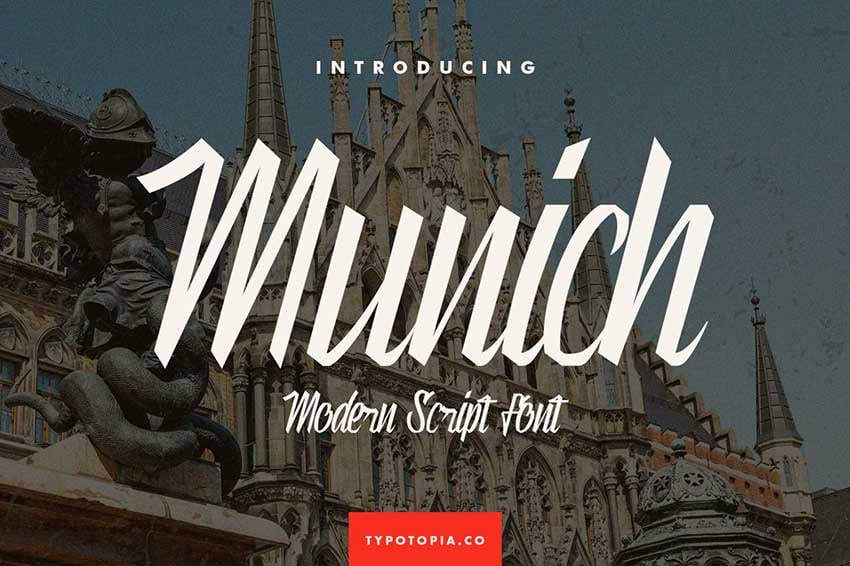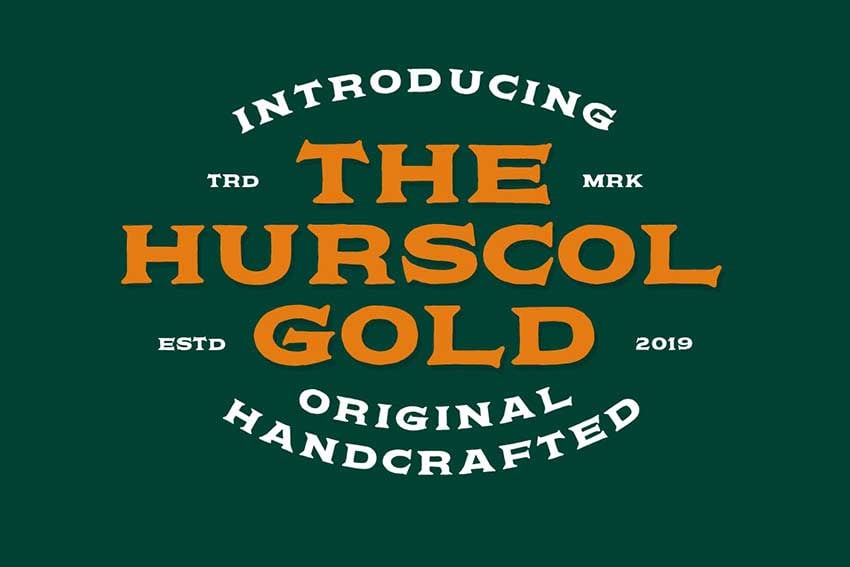
43 Best Cricut Sports Fonts (Varsity, Jersey, Baseball, and Stencil Fonts)
Explore some of the best Cricut sports fonts and Cricut fonts with tails to add to your creative projects.
Touchdown Slab Font (OTF, TTF, EOT, SVG, WOFF, WOFF2)
This bold and bulky sports font for Cricut is excellent for football games. Touchdown has two versions: a clean version and a grainy texture. The latter can help you recreate vintage-style photos with a unique retro texture.
Slimedunk (OTF, TTF)
This modern and unique sans serif varsity font for Cricut comes in three styles. The regular style can be used for a project that needs clear fonts. The rough version can be used for projects that require more personality, like movie posters or titles. The italic version is a nice one to have in your designer toolbox to create a hierarchy.
Boxing (OTF)
This slab serif font is a great baseball font for Cricut. This bold font is inspired by digital games and can add a punchy look to your designs. Use this slab serif to create an emblem for sports-related projects.
Beard Canye (OTF)
Beard Canye is a beautiful hand-lettered baseball font for Cricut. The font is clean, modern, and absolutely legible, especially from afar. Beard Canye is also suitable for branding, packaging, and social media.
Boston (OTF, TTF)
Cricut fonts with tails that are also high-quality are hard to come by. This font comes with multiple swashes that can elevate your projects. Boston is a beautiful Cricut baseball font suitable for apparel, editorial design, and social media.
Radens (OTF, TTF, WOFF)
Radens is a retro Cricut sports font that combines Americana traditions and sports. This font would perfectly work for brand design, quotes, and apparel. The pack comes with multiple languages and many features.
Nordin (OTF, TTF)
This beautiful and elegant condensed slab serif is a great Cricut jersey font. The tall, condensed look makes it look super sporty, and the slab serifs give it a good base. Nordin Slab Serif is great for editorial design, as a jersey Cricut font, and for branding.
Mudhead (OTF)
This sports-inspired font is an awesome font for Cricut. Mudhead is bold, sharp, and unique. It features an almost slab serif on the characters that make it look strong. The pack contains many different font weights, and this can be the only font you use in a project.
Northline (OTF, TTF, WOFF)
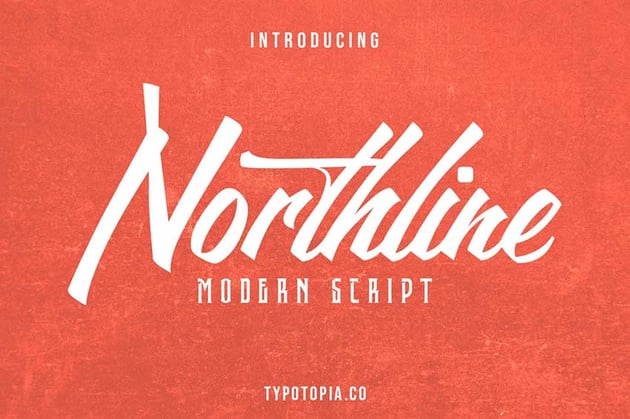
This modern script font is the perfect Cricut baseball font. The script style is vintage, similar to the ones you'd find in a 1950s ad. Northline is suitable for branding, design templates, and sports apparel.
Sporter (OTF, TTF)
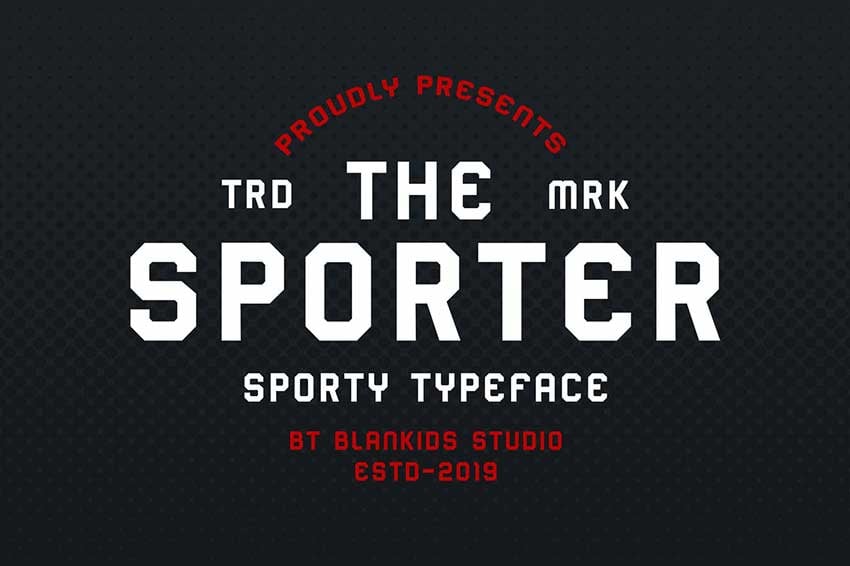
This sports font for Cricut is the perfect addition to your designer toolbox. The font is squarish and sharp, and it comes across as strong and loud. This sporty typeface is suitable for gym branding, sports apparel, and social media posts.
Hardora (OTF, TTF)
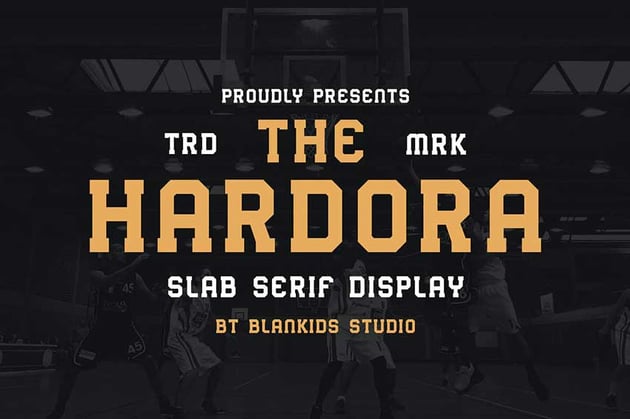
Hardora is the perfect jersey font for Cricut. Use it for the back of team shirts with last names or team names. This font is also suitable for editorial design, packaging, and social media stories.
Hadrey (OTF)
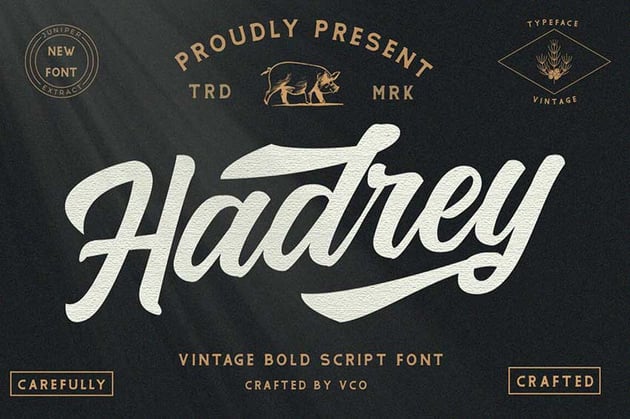
Hadrey is one of the best Cricut fonts with tails, and the pack comes with multiple swash variations. This retro and vintage font is inspired by old Americana, making it perfectly suited for a baseball font for Cricut. Hadrey is also great for merchandise, poster design, and packaging.
Antheme (OTF, TTF, WOFF)
Antheme is a beautiful Cricut sports font with a script style. The characters are built with a brush, and each one contains a finishing stroke that lets you know where the characters start and end. This font is suitable for templates, brochures, and team apparel.
Thirtylane (OTF)
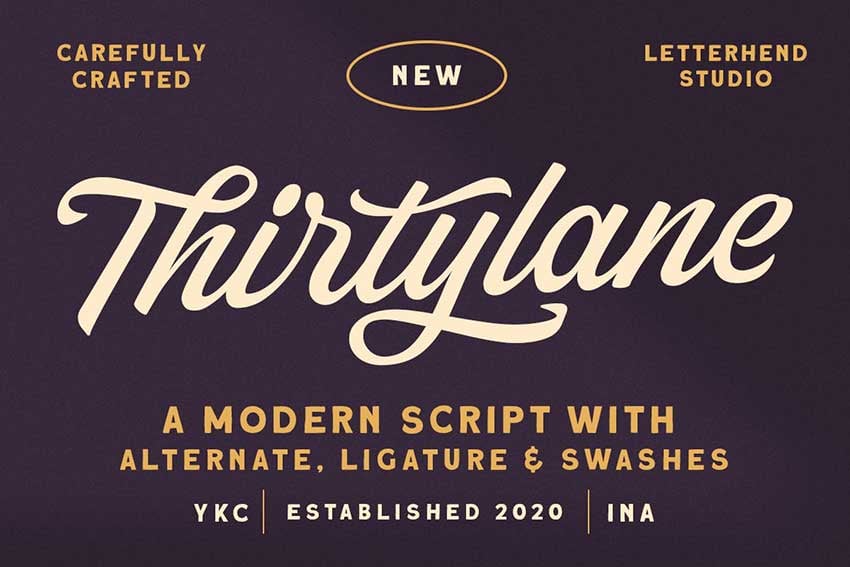
Thirtylane is one of the best Cricut fonts with tails. This bold script is specifically made for logos—it's highly legible, and each character is special. It would be great for packaging, team logos, and stationery.
Houston (OTF, TTF)
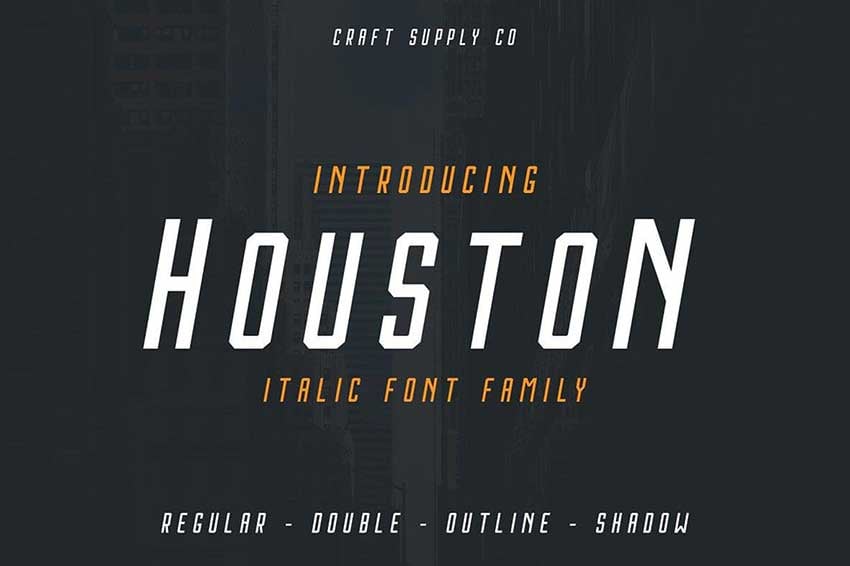
Houston is a Cricut sports font inspired by modular sans serif fonts from American sports graphics. The pack contains four different versions: regular, double, outline, and shadow. With so many options, you can create anything from brand designs to editorial designs.